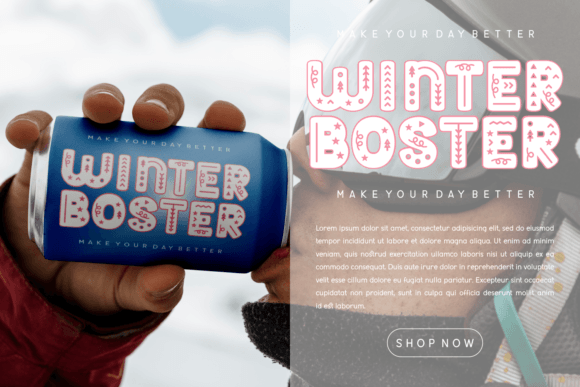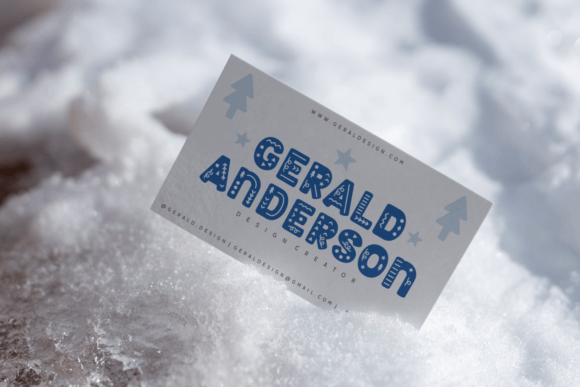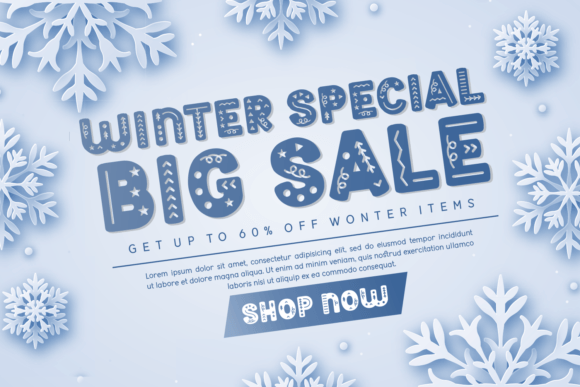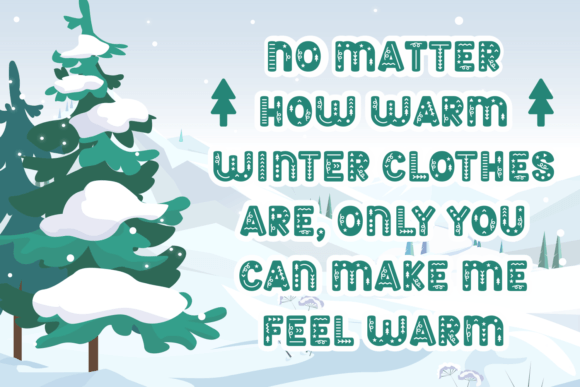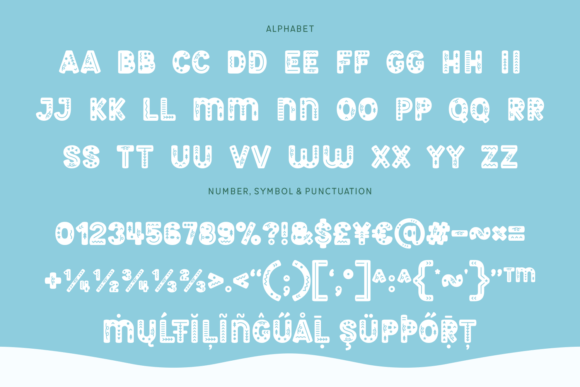
Introducing Always Winter Font: A Joyful Decorative Font for Winter Designs
Are you looking for a font that captures the magic of winter and adds a touch of joy to your designs? Look no further than the Always Winter Font, a fabulous decorative font that is perfect for creating outstanding typography designs for the winter season. With its charming winter doodles and PUA encoding, this font is a must-have for designers and crafters who want to create beautiful and festive designs.
What is Always Winter Font?
Always Winter Font is a decorative font that is specifically designed to bring the joy and magic of winter to your designs. This font features joyful winter doodles that add a playful touch to any design, making it perfect for Christmas invitations, cards, advertising materials, gift tags, and more.
Key Features of Always Winter Font
- Decorative Winter Doodles: The Always Winter Font features charming winter doodles that add a playful touch to any design.
- PUA Encoding: This font is PUA encoded, which means that you can easily access all the glyphs and use them in your designs.
- Perfect for Winter Designs: This font is specifically designed for winter designs, making it perfect for Christmas invitations, cards, advertising materials, gift tags, and more.
- Easily Accessible: With PUA encoding, you can easily access all the glyphs and use them in your designs, making it easy to create beautiful and festive designs.
Uses of Always Winter Font
Always Winter Font is a versatile font that can be used for a variety of design projects, including:
- Christmas Invitations: Create beautiful and festive Christmas invitations with this font.
- Winter Cards: Design stunning winter cards with this font, perfect for sending to friends and family.
- Advertising Materials: Use this font to create eye-catching advertising materials, such as posters, flyers, and brochures.
- Gift Tags: Create beautiful gift tags with this font, perfect for adding a personal touch to gifts.
- Social Media Graphics: Use this font to create stunning social media graphics, such as Facebook posts, Instagram posts, and Twitter headers.
Benefits of Using Always Winter Font
Using Always Winter Font in your designs offers a range of benefits, including:
- Unique and Festive Designs: This font allows you to create unique and festive designs that capture the magic of winter.
- Easily Accessible Glyphs: With PUA encoding, you can easily access all the glyphs and use them in your designs.
- Perfect for Winter Season: This font is specifically designed for the winter season, making it perfect for creating winter-themed designs.
- Time-Saving: This font saves you time and effort, as you can easily create beautiful and festive designs without having to design from scratch.
Always Winter Font is a fabulous decorative font that is perfect for creating outstanding typography designs for the winter season. With its charming winter doodles and PUA encoding, this font is a must-have for designers and crafters who want to create beautiful and festive designs. Whether you’re creating Christmas invitations, winter cards, or advertising materials, this font is sure to add a touch of joy and magic to your designs.